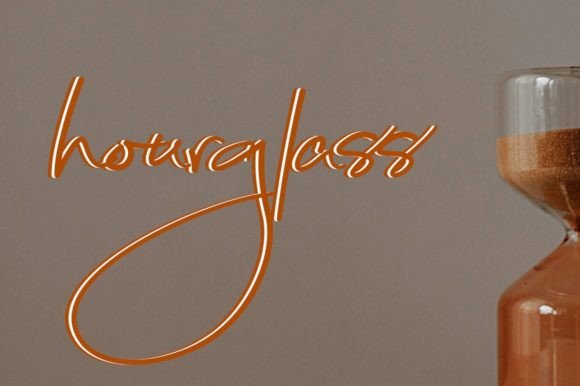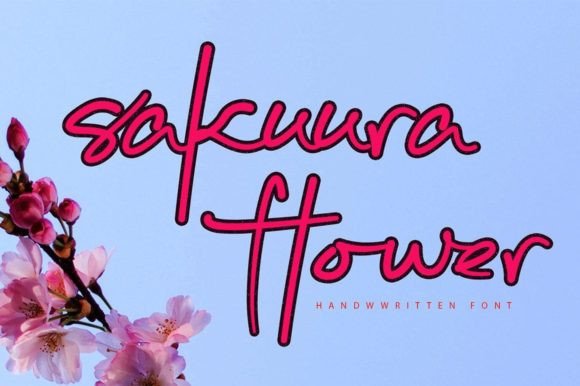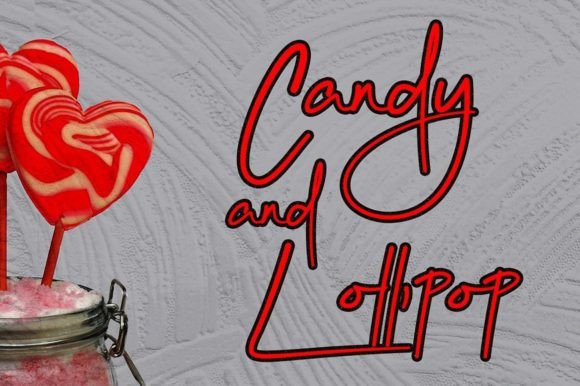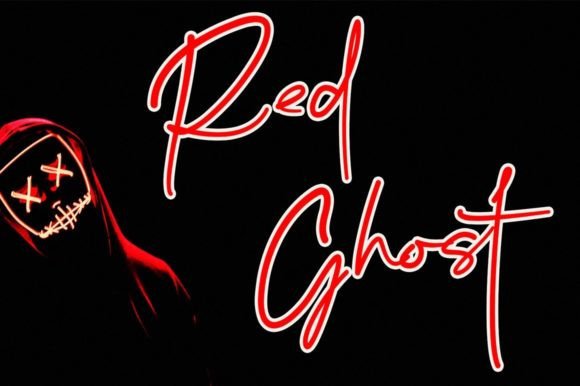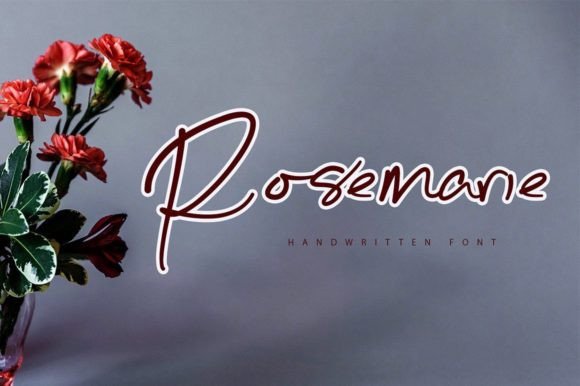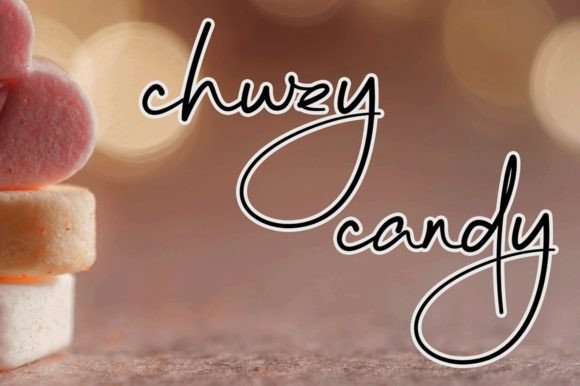
Alarm Clock Font: The Perfect Addition to Your Design Arsenal
Are you tired of using the same old fonts in your designs? Look no further than the Alarm Clock font, an enchanting handwritten script that is sure to add a touch of romance and whimsy to your next project. With its versatile and elegant design, this font is perfect for a wide range of applications, from greeting cards to headlines and everything in between.
The Charm of Alarm Clock Font
Alarm Clock font is a beautifully crafted handwritten script that exudes a sense of warmth and personality. Its elegant strokes and delicate curves make it perfect for designs that require a touch of sophistication and romance. Whether you’re creating a greeting card, a poster, or a social media graphic, this font is sure to add a touch of magic to your design.
One of the best things about Alarm Clock font is its versatility. This font can be used in a wide range of applications, from:
• Greeting cards: Add a personal touch to your greeting cards with Alarm Clock font.
• Headlines: Make your headlines stand out with the elegant and sophisticated design of Alarm Clock font.
• Posters: Create eye-catching posters with Alarm Clock font that are sure to grab attention.
• Social media graphics: Add a touch of personality to your social media graphics with Alarm Clock font.
• Wedding invitations: Make your wedding invitations extra special with the romantic and elegant design of Alarm Clock font.
Why Choose Alarm Clock Font?
So why choose Alarm Clock font over other fonts? Here are just a few reasons:
• Unique design: Alarm Clock font has a unique and distinctive design that is sure to set your designs apart from the rest.
• Romantic feel: This font has a romantic and elegant feel that is perfect for designs that require a touch of sophistication.
• Versatility: Alarm Clock font can be used in a wide range of applications, making it a great addition to your design arsenal.
• Easy to read: Despite its elegant design, Alarm Clock font is easy to read, making it perfect for designs that require a clear and concise message.
Tips for Using Alarm Clock Font
Here are a few tips for using Alarm Clock font in your designs:
• Use it sparingly: While Alarm Clock font is beautiful, it can be overwhelming if used too much. Use it sparingly to add a touch of elegance to your design.
• Pair it with other fonts: Alarm Clock font pairs well with other fonts, such as sans-serif fonts. Experiment with different pairings to find the perfect combination for your design.
• Adjust the size: Alarm Clock font looks great in a variety of sizes. Experiment with different sizes to find the perfect fit for your design.
Alarm Clock font is a beautiful and versatile handwritten script that is sure to add a touch of romance and elegance to your next design project. With its unique design, romantic feel, and versatility, this font is perfect for a wide range of applications. Whether you’re a designer, crafter, or DIY enthusiast, Alarm Clock font is a great addition to your design arsenal.
Get Ready to Fall in Love with Alarm Clock Font
So why wait? Get ready to fall in love with Alarm Clock font and take your designs to the next level. With its enchanting design and versatility, this font is sure to become a favorite in your design collection.